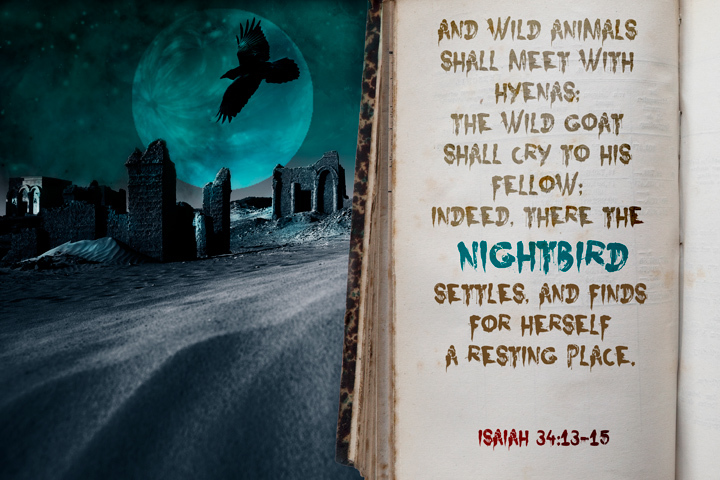
DK Nightbird
DK Nightbird is a bold, brush-style display font that exudes a captivating, eerie atmosphere. Crafted by designer David Kerkhoff, this font's distinctive letterforms evoke a sense of the supernatural, with jagged edges and a textured, almost haunting appearance. The irregular, brush-like strokes lend a raw, visceral quality, making it well-suited for horror-themed designs, heavy metal album covers, and other applications where a striking, unsettling aesthetic is desired.
The font's versatility extends beyond the realm of the macabre, however. Its bold, eye-catching nature also lends itself well to attention-grabbing headlines, signage, and various branding initiatives that aim to make a lasting impression. With its strong personality and unique character, DK Nightbird is a font that commands attention and leaves a lasting impact on viewers.